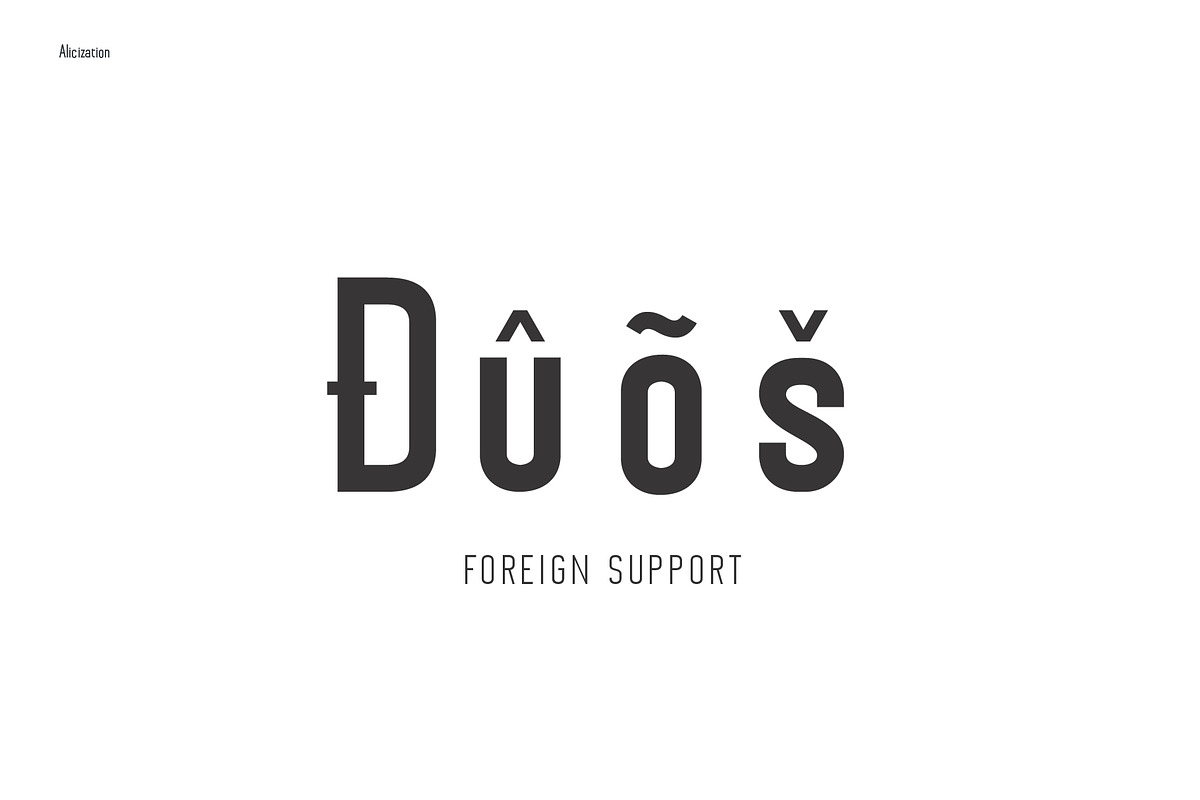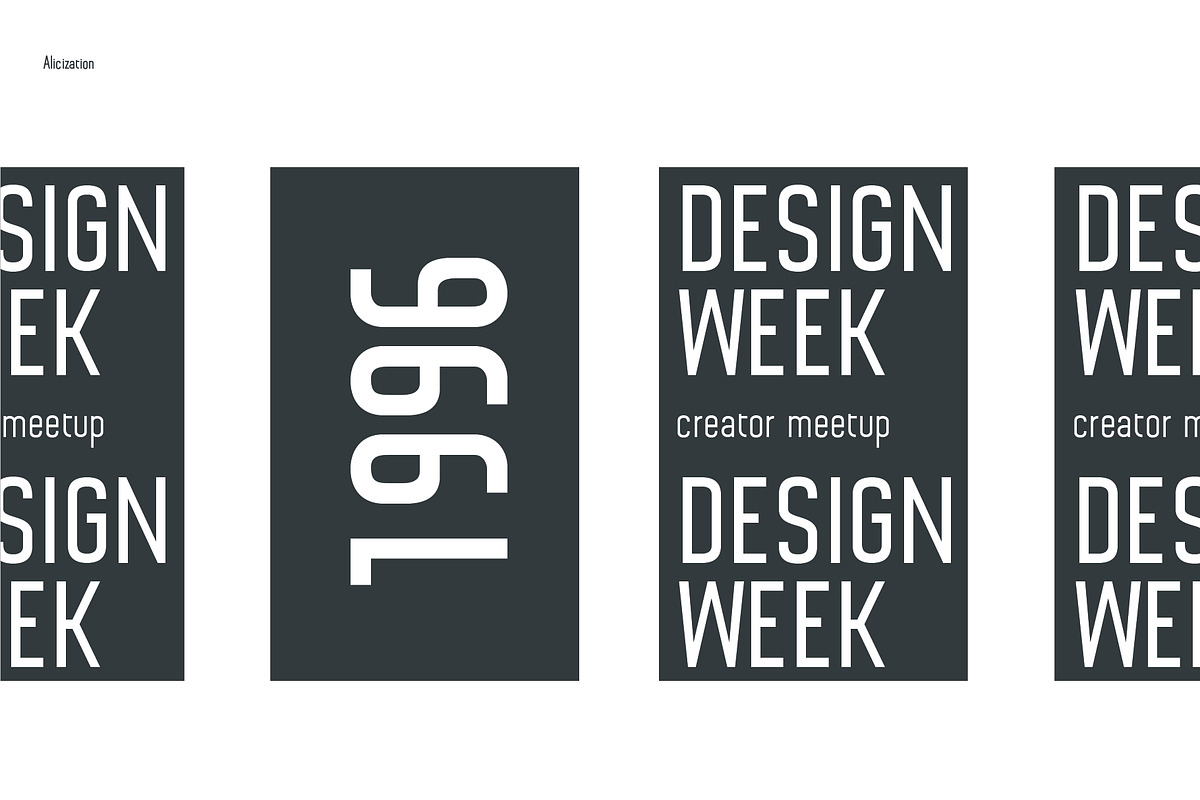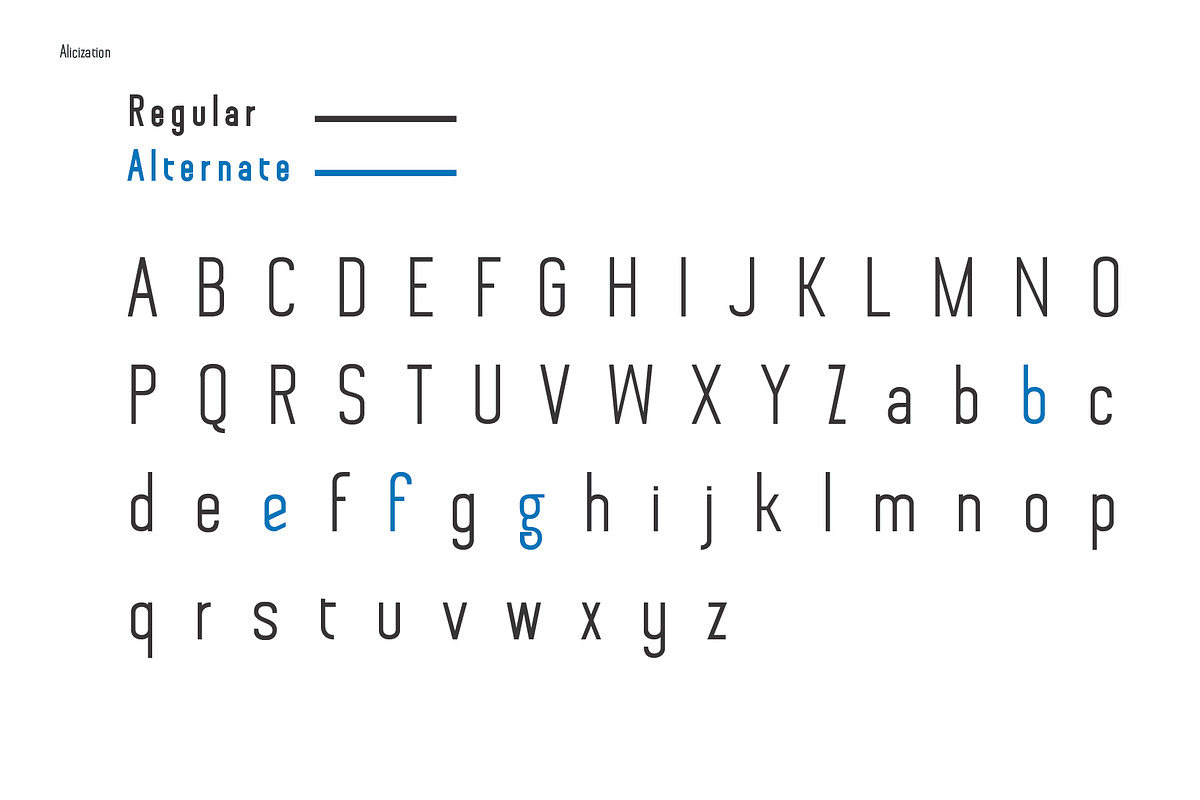
Alicization - Sans Serif
Alicization is a strong and serif-less family font. This font is controlled and modern touch. Hard line balance and smooth curves. Each font in the family can stand alone, dynamic, and authoritative as desired. Alicization works great in any branding, logos, magazines, films. The different weights give you full range to explore a whole host of applications, while the outlined fonts give a real modern feel to any project.